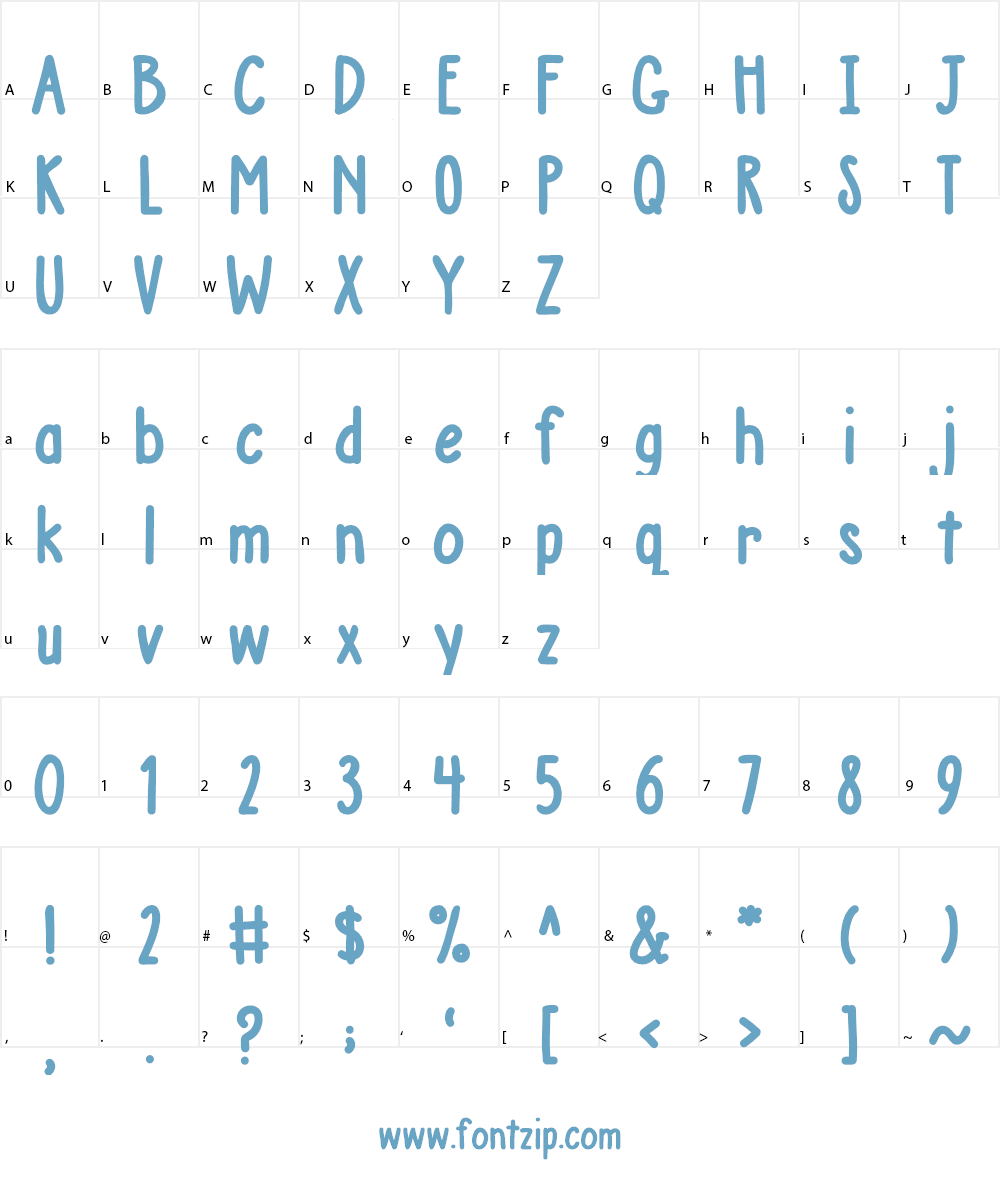
Austie Bost Chunky Description is a clean, chunky font, perfect for labeling, making lists, clearly labeling envelopes. And maybe for a few other things. :)